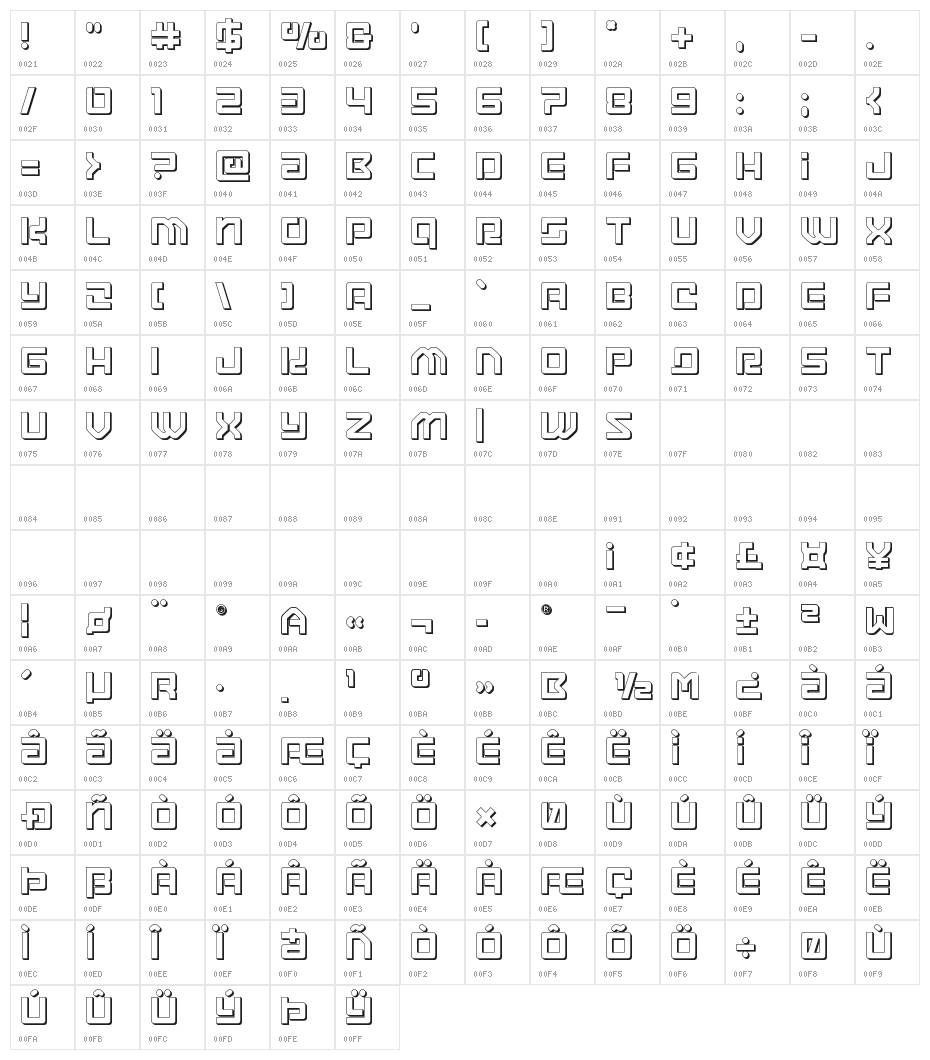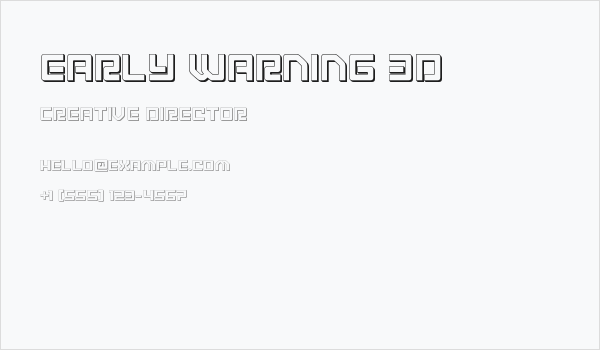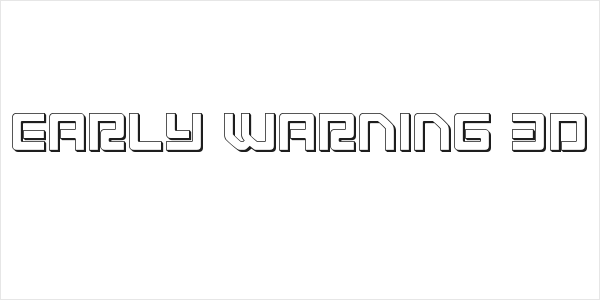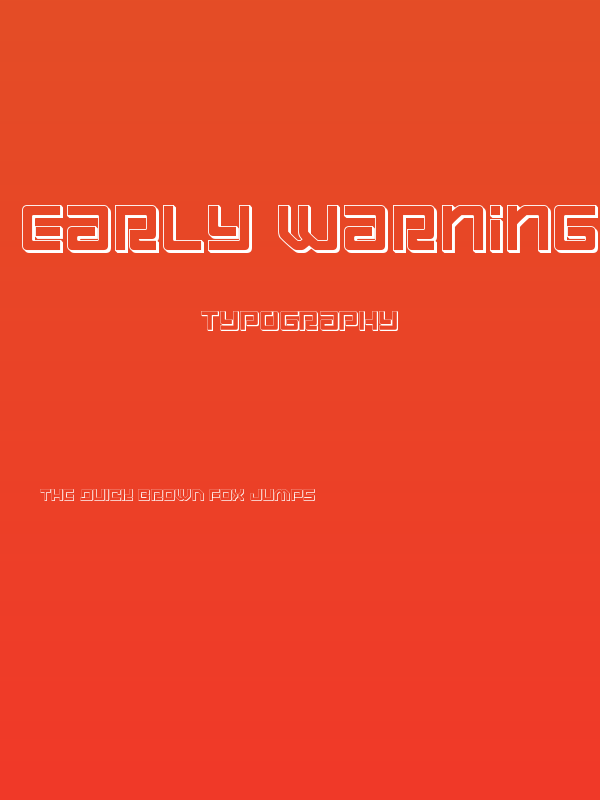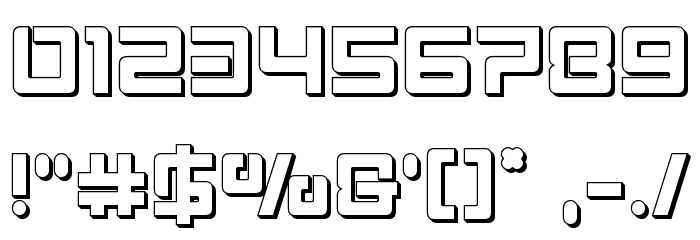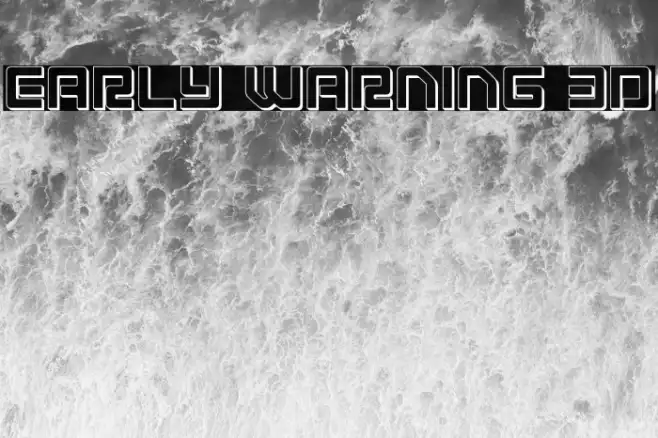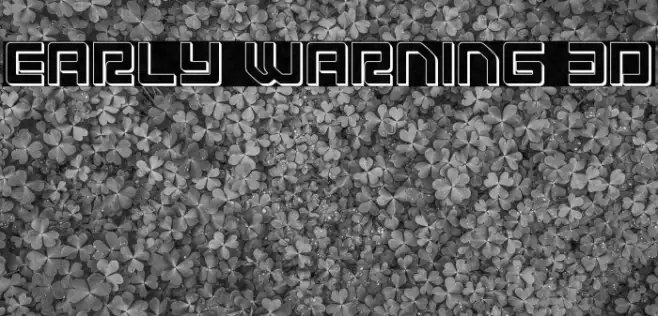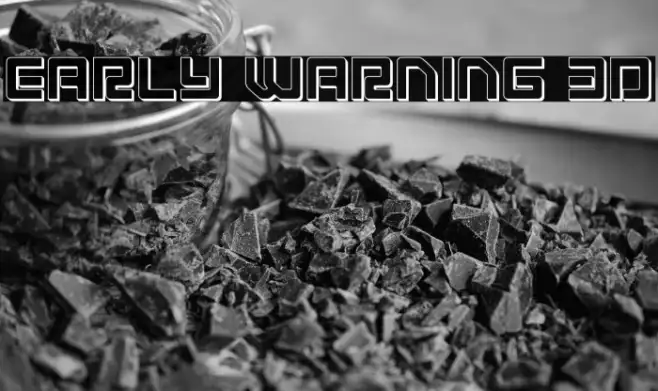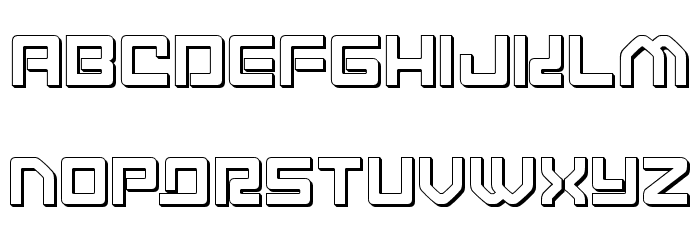
Early Warning 3D Font
Early Warning 3D Description
This font features a bold, geometric design with a three-dimensional effect, characterized by its blocky, angular shapes and hollow centers. The uppercase and lowercase letters maintain a consistent style, with sharp edges and a futuristic appearance. The numbers and special characters follow the same design principles, ensuring uniformity across all characters. The font's distinct outline and 3D illusion make it stand out, ideal for projects requiring a modern and eye-catching typeface.
| Proposed Projects | Ideal for futuristic designs, tech-related branding, video game titles, and sci-fi themed posters. |